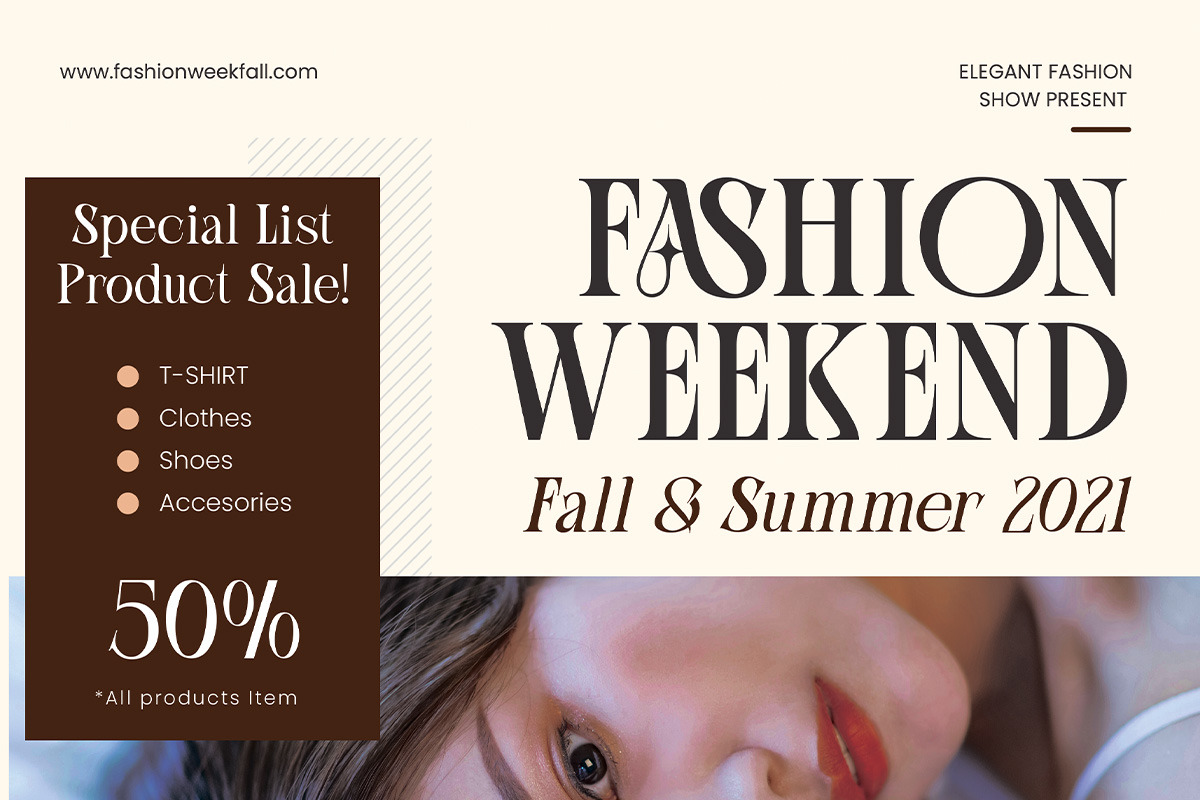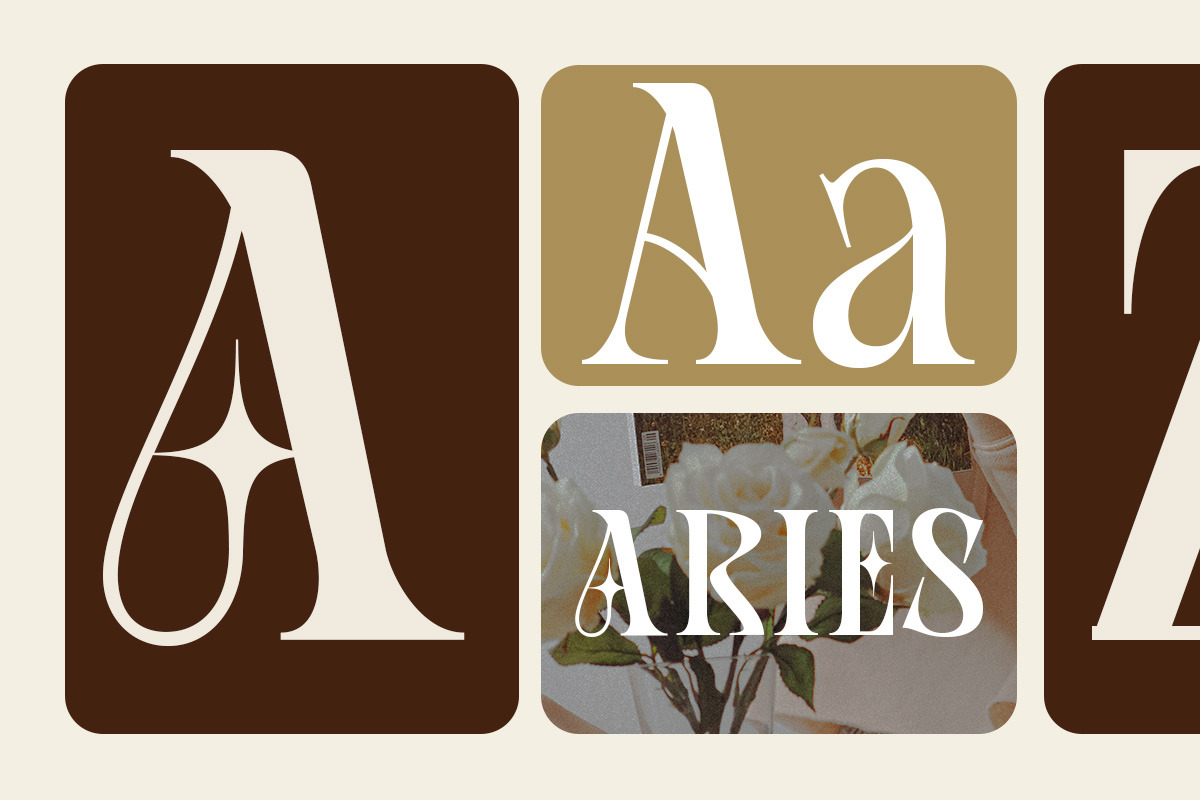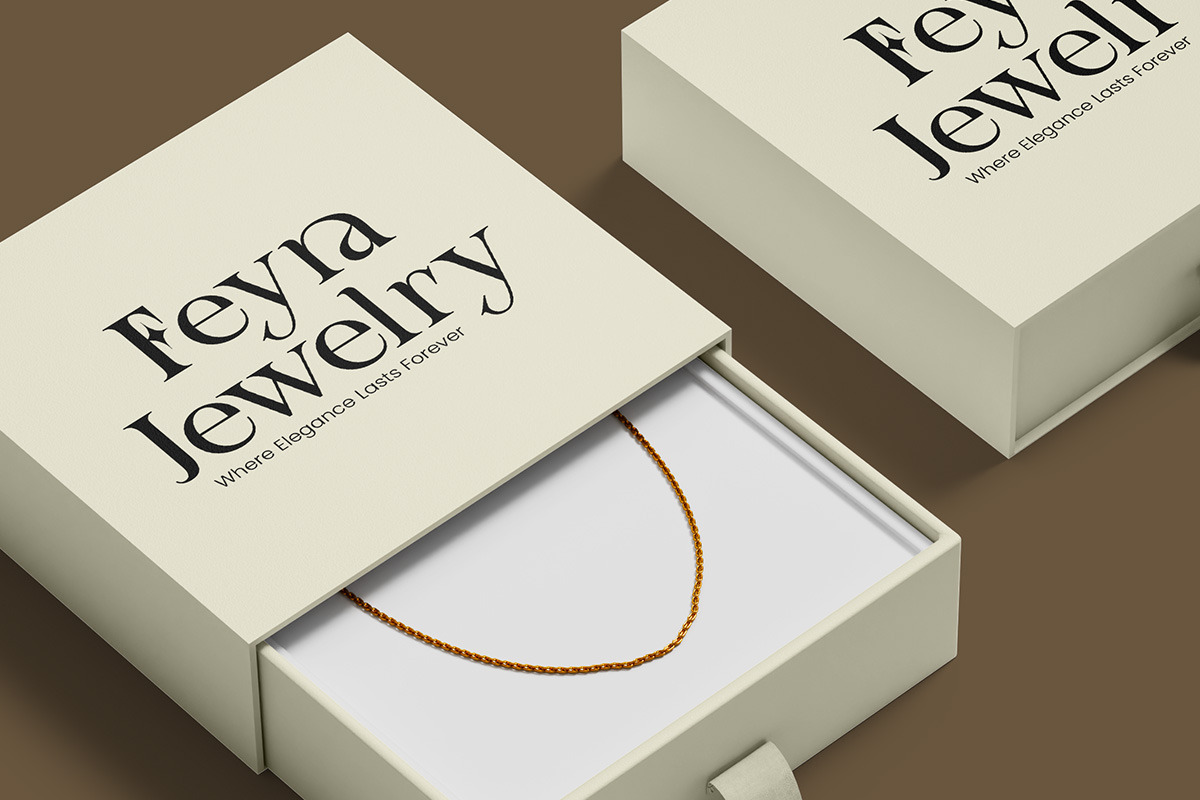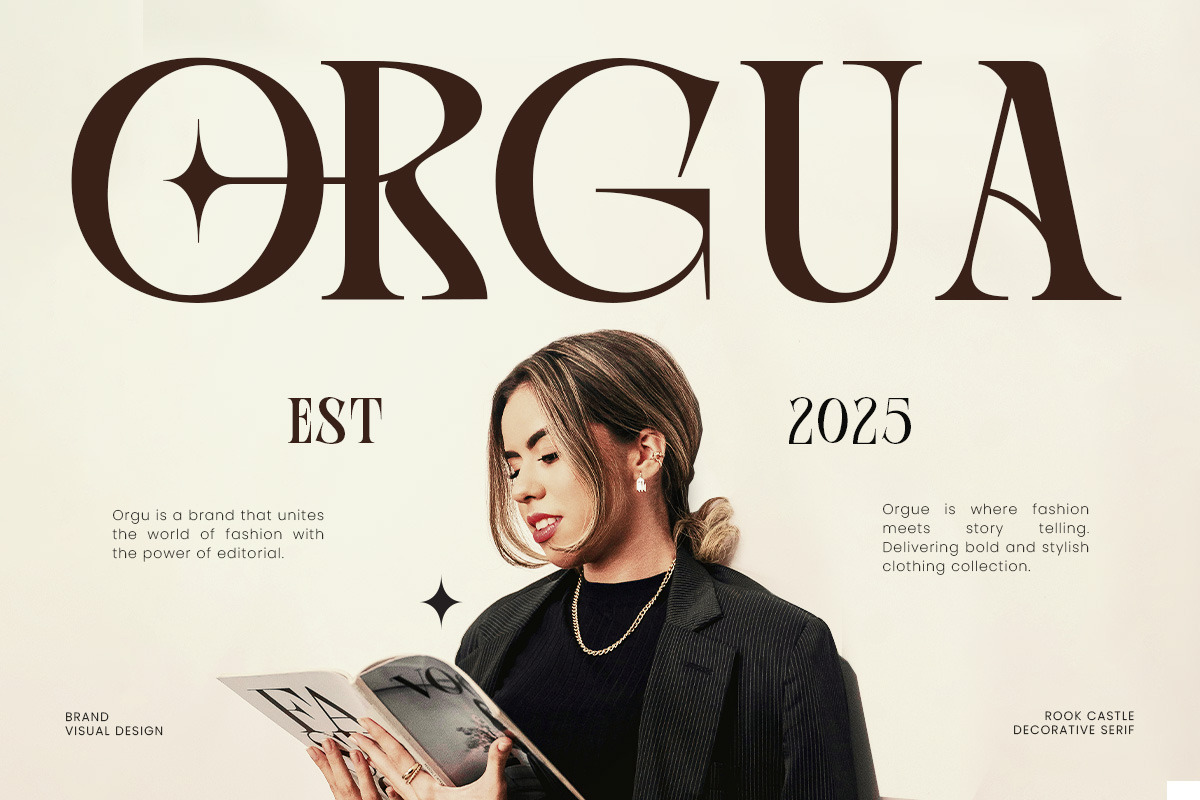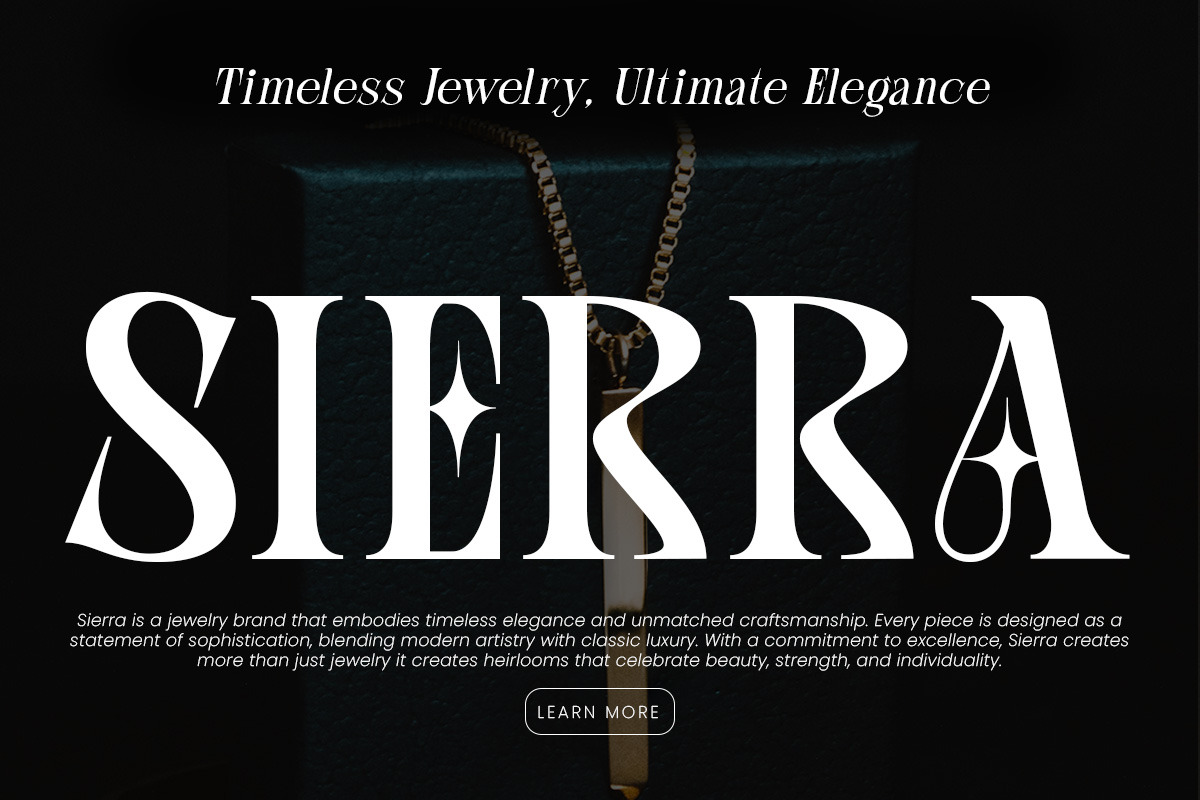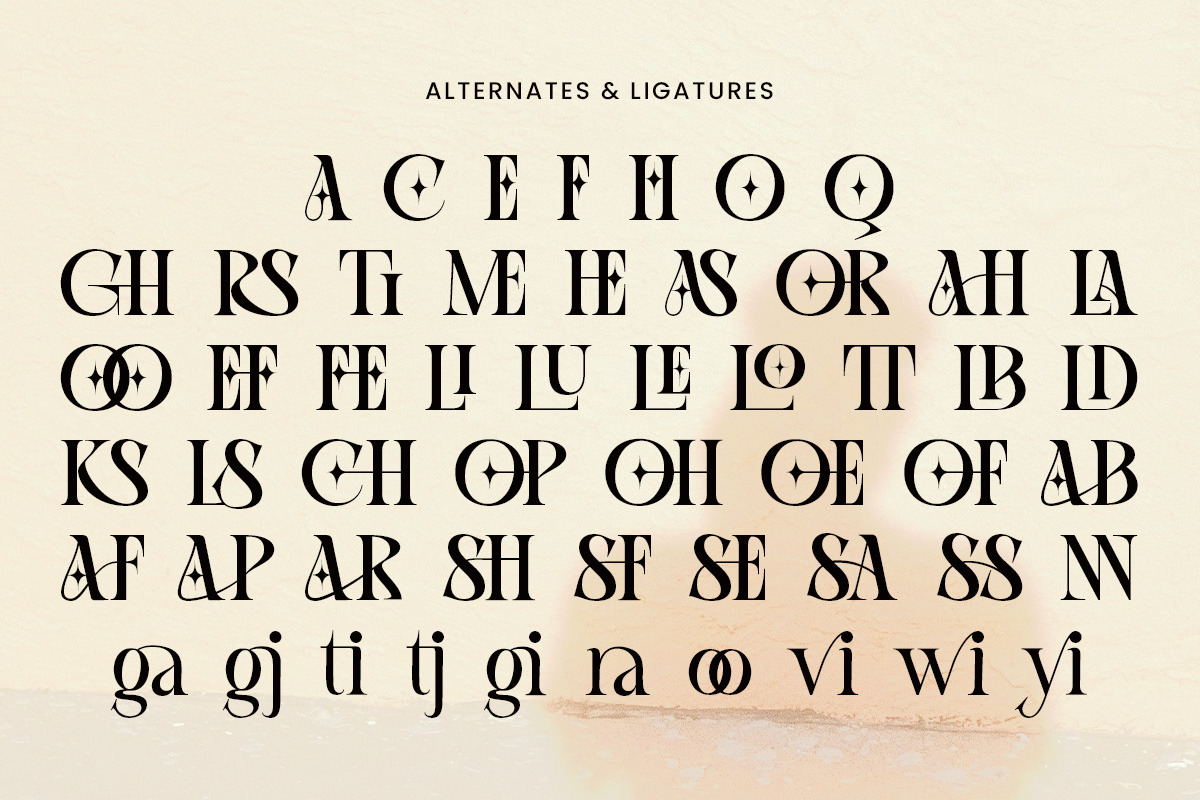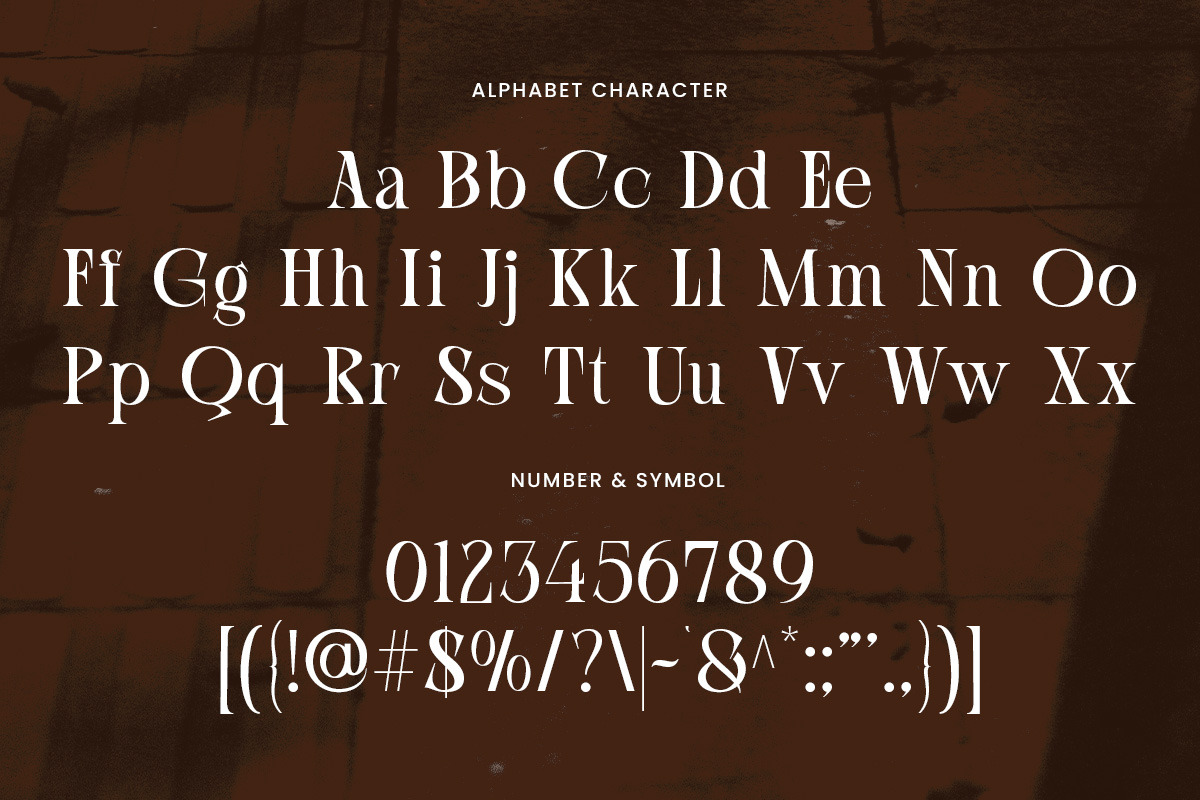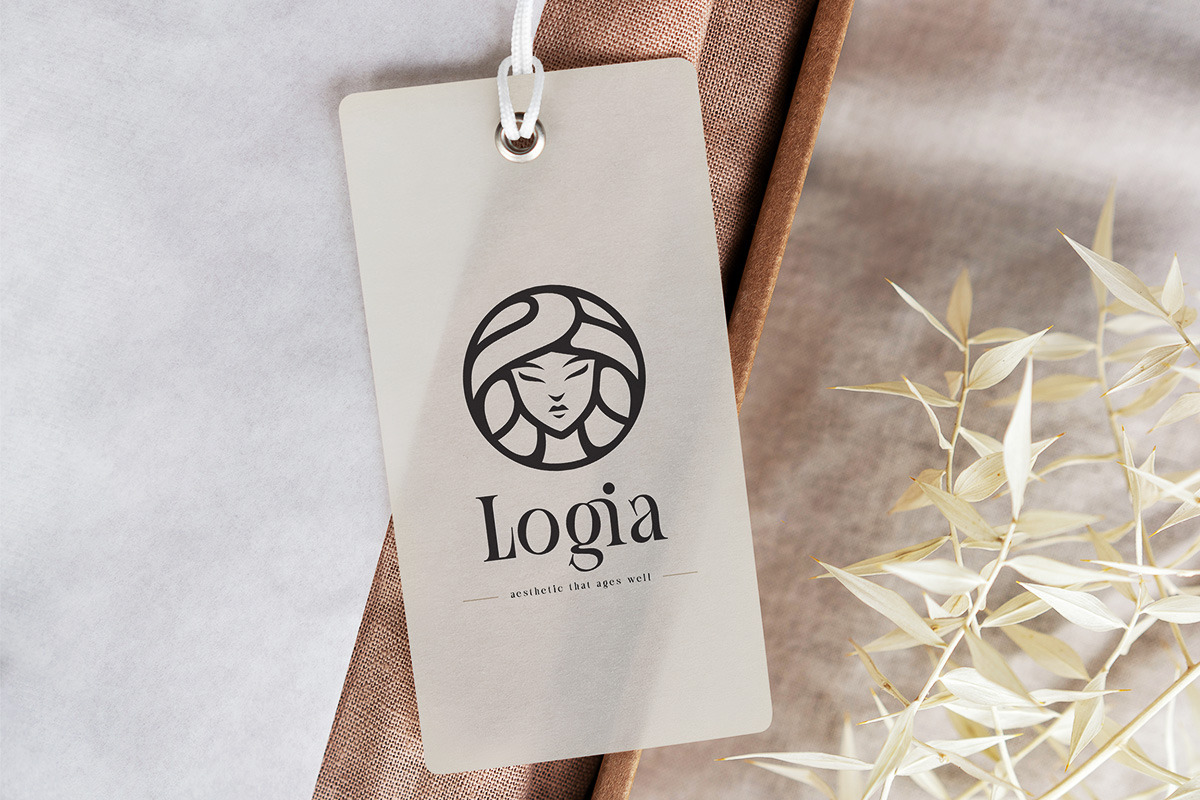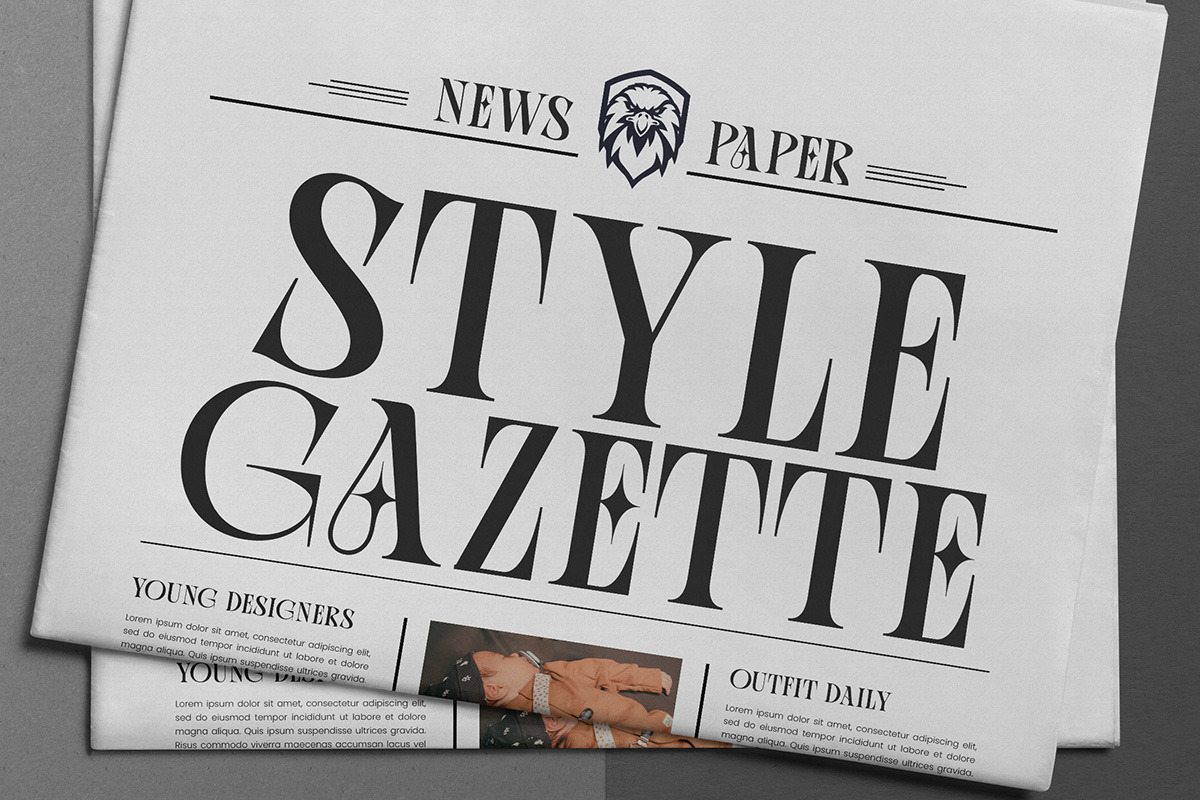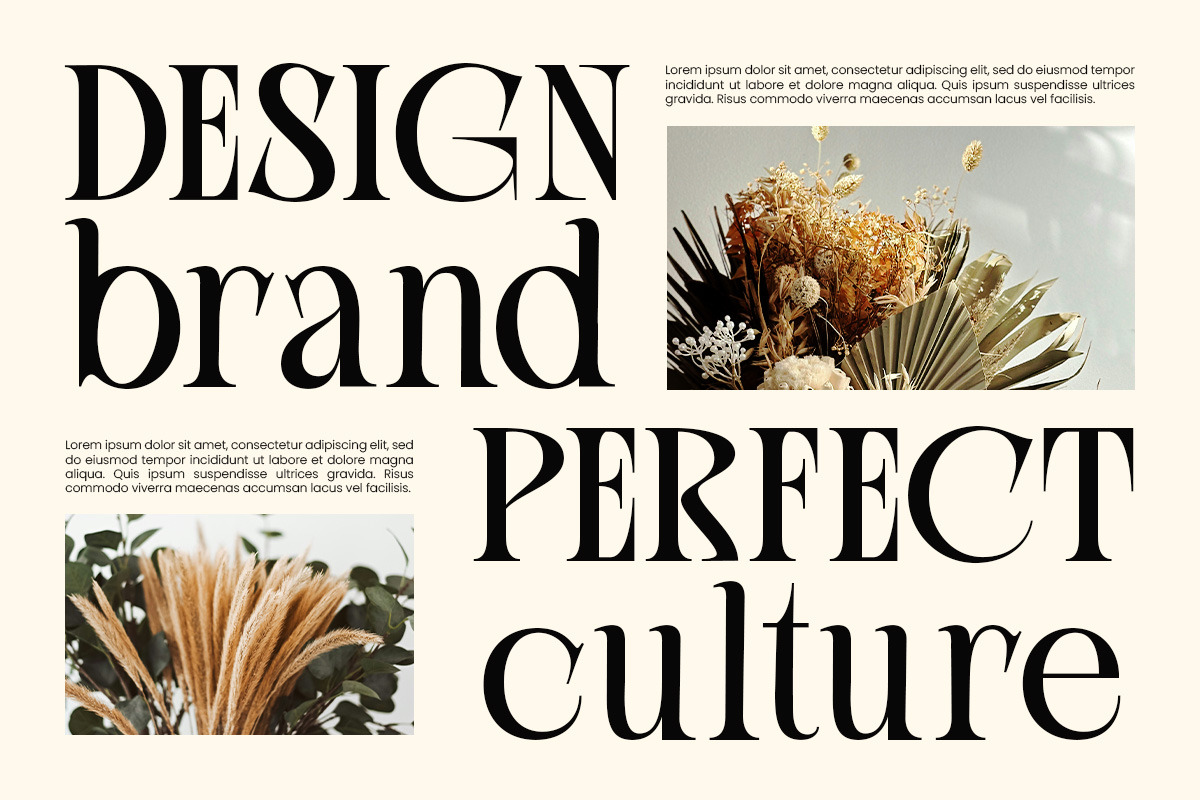
Rook Castle – Bold Gothic Display
Rook Castle is a decorative serif typeface that blends timeless elegance with bold personality. Inspired by classic architecture and medieval charm, this font brings a sense of sophistication and strength to any design project. Its stylish curves and distinctive letterforms make it a perfect choice for those who want to create designs with impact and character.
Designed with attention to detail, Rook Castle features high contrast strokes, refined serifs, and a unique ornamental touch that makes every character stand out. The typeface is versatile enough to be used in large headlines while maintaining perfect readability. Whether you’re designing branding materials, logos, or editorial layouts, this font delivers a professional yet artistic feel that sets your work apart.